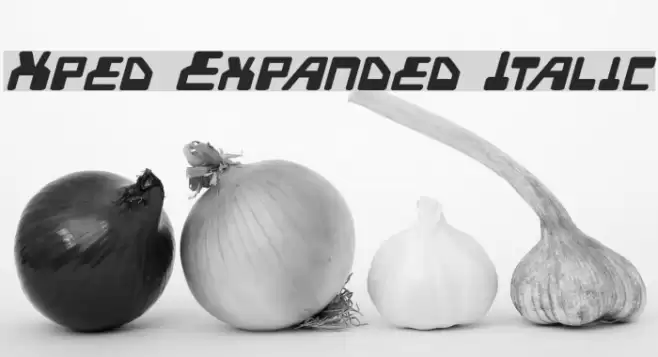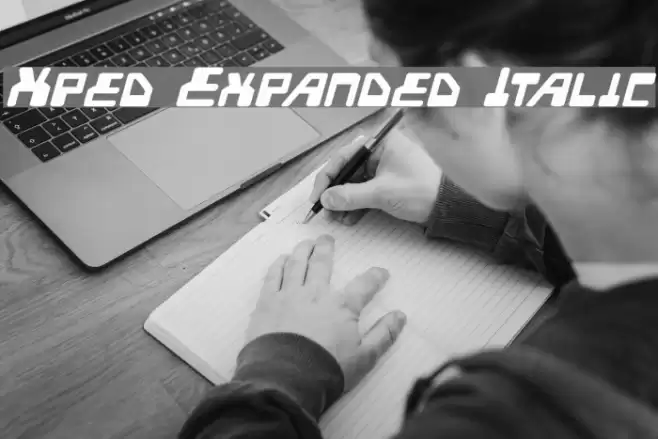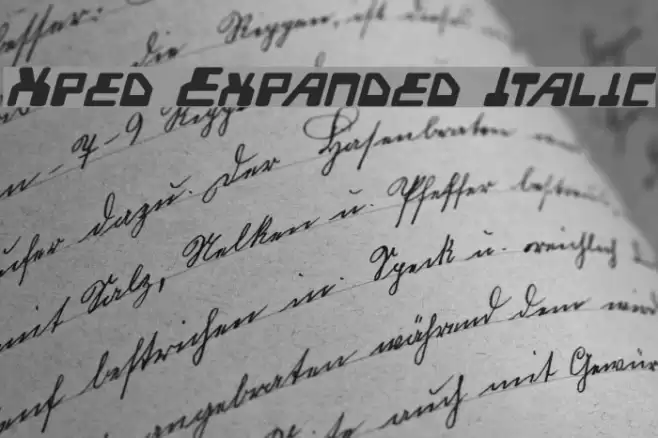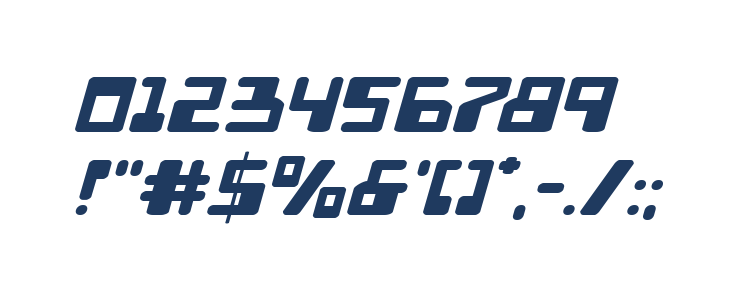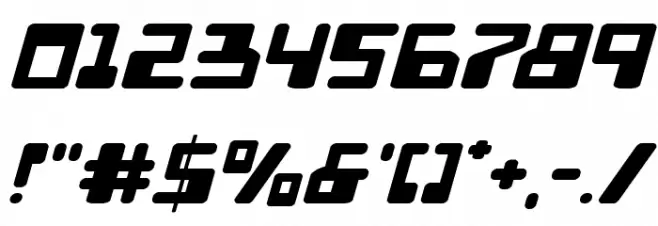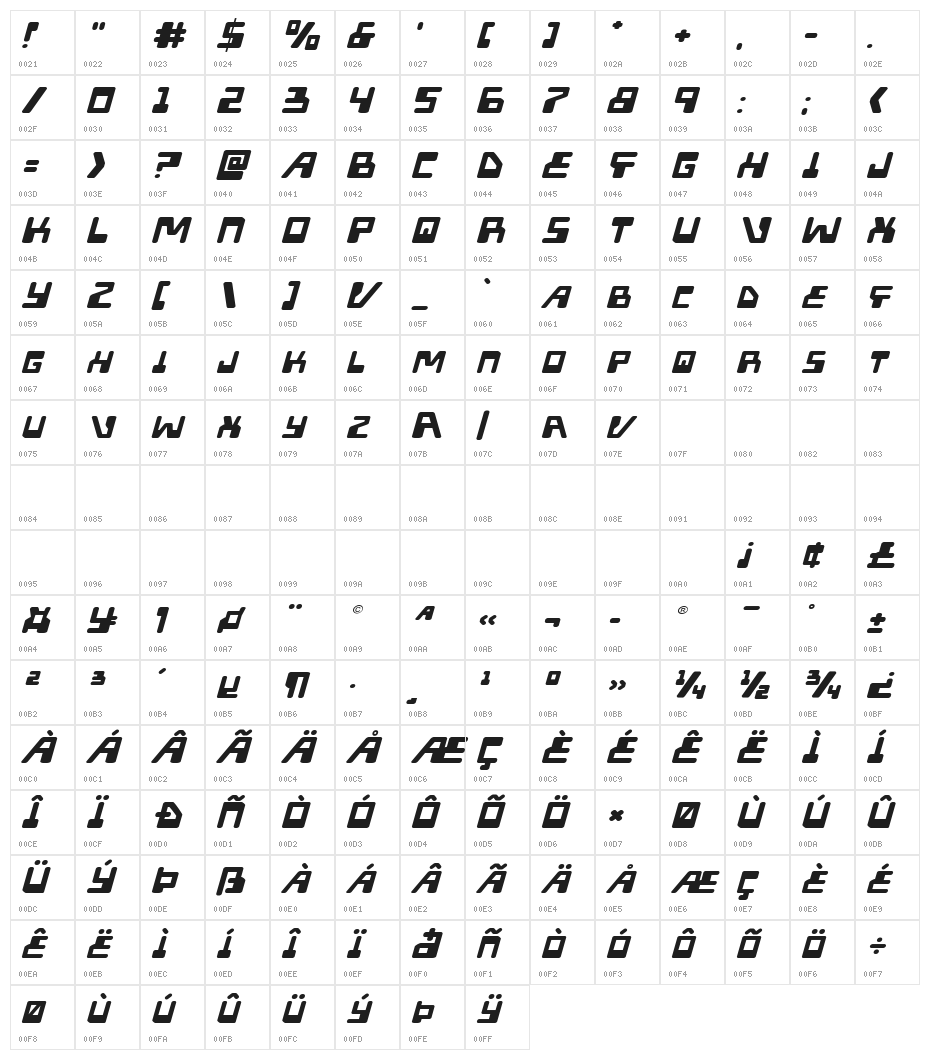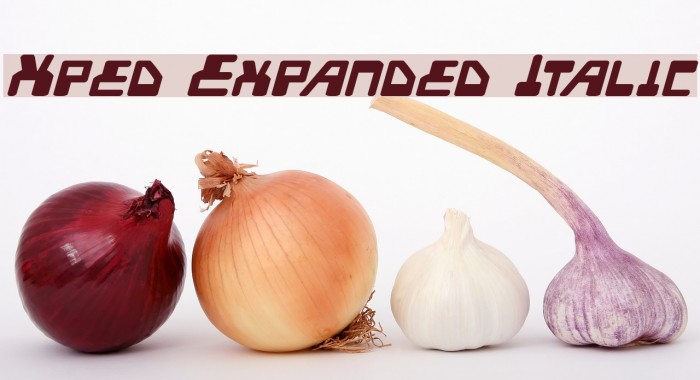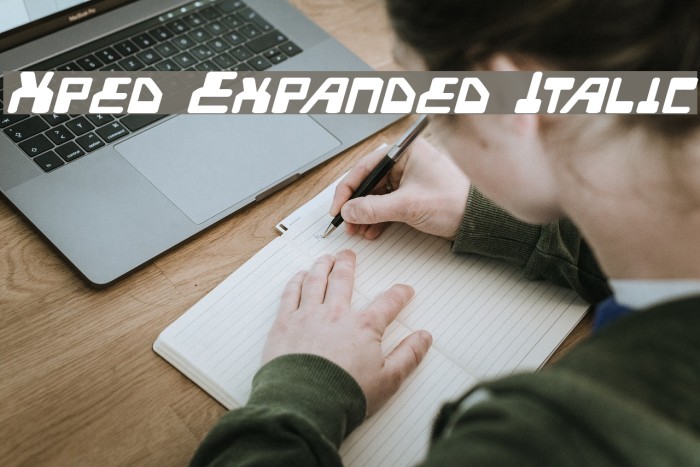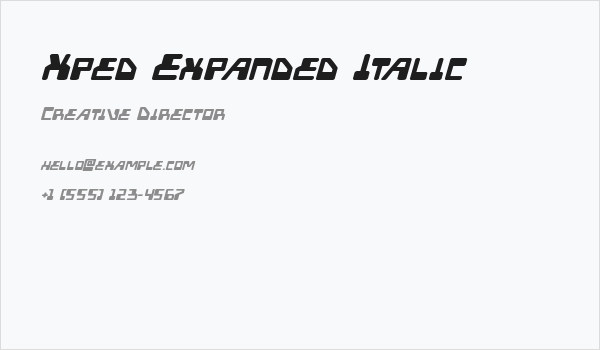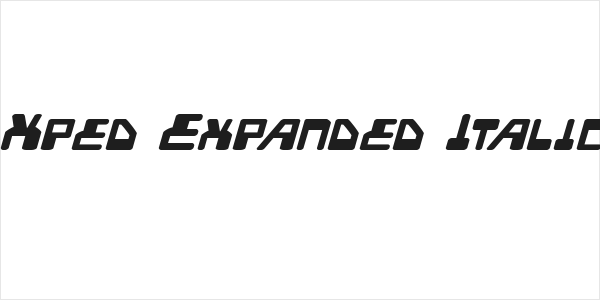
Xped Expanded Italic Font
Xped Expanded Italic Description
This font features a bold and dynamic style with an expanded width and italic slant, giving it a sense of motion and energy. The characters are designed with a futuristic and geometric aesthetic, characterized by sharp angles and clean lines. The uppercase and lowercase letters maintain a consistent style, while the numerals and special characters complement the overall design. The font's boldness and expanded form make it highly visible and impactful, suitable for attention-grabbing applications.
A bold, expanded, and italic font with a futuristic and geometric style from Uncategorized fonts.
- Proposed Projects: Ideal for sports branding, technology logos, dynamic posters, and modern advertising campaigns.